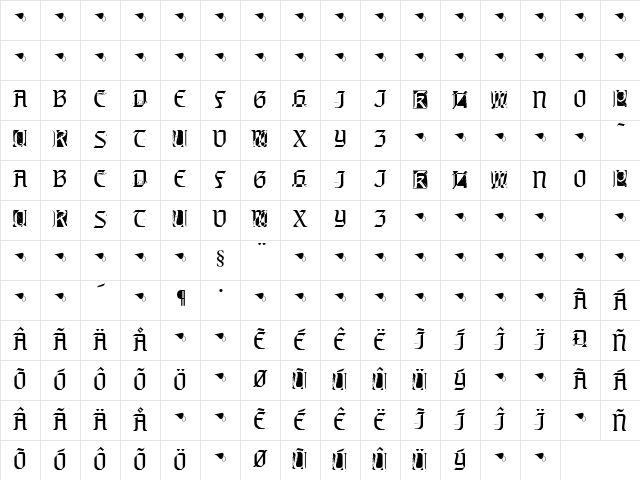
Augsburger Initials Regular
Design Context for Augsburger Initials Typeface
Augsburger Initials takes a measured approach to typography — its balanced proportions and neutral character make it a reliable workhorse for both digital and print work.